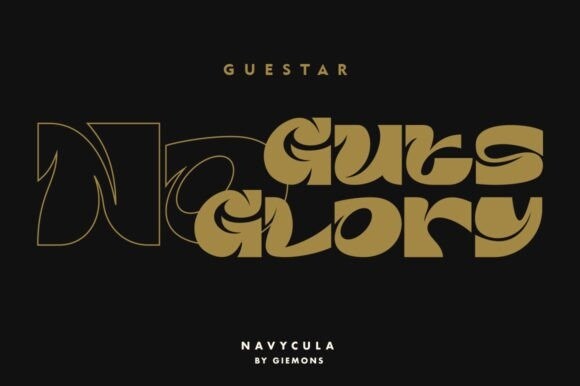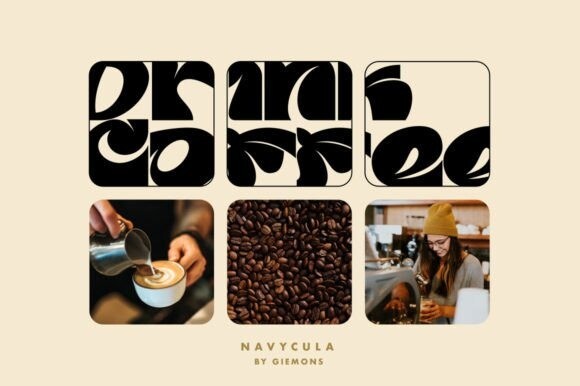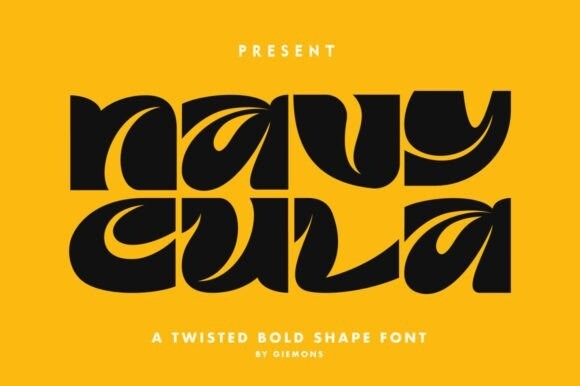
Navycula Font
Navycula Font is a unique and eye-catching display font that’s perfect for grabbing attention. Its bold and wavy letterforms exude energy and dynamism, making it ideal for use in headlines, logos, and other design projects that require impact. Navycula’s distinctive curves and angles give it a sense of movement and fluidity, while its chunky weight provides a strong, stable foundation.